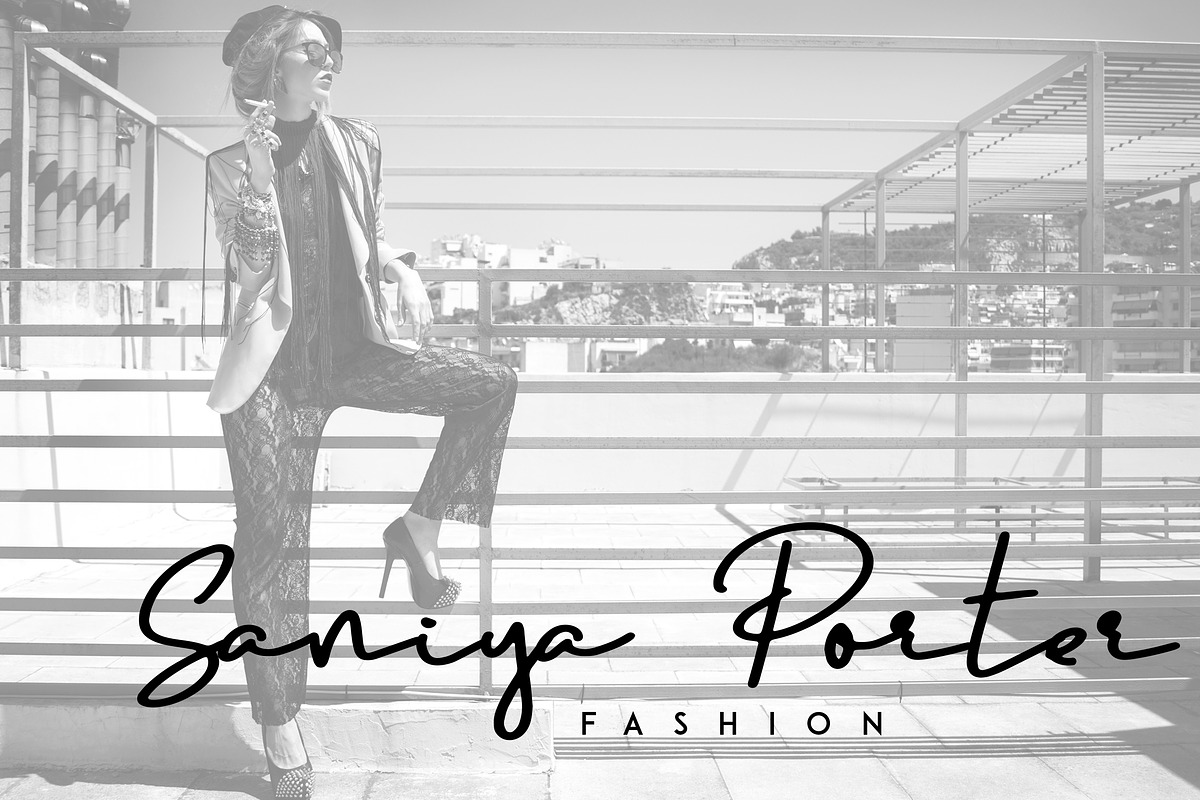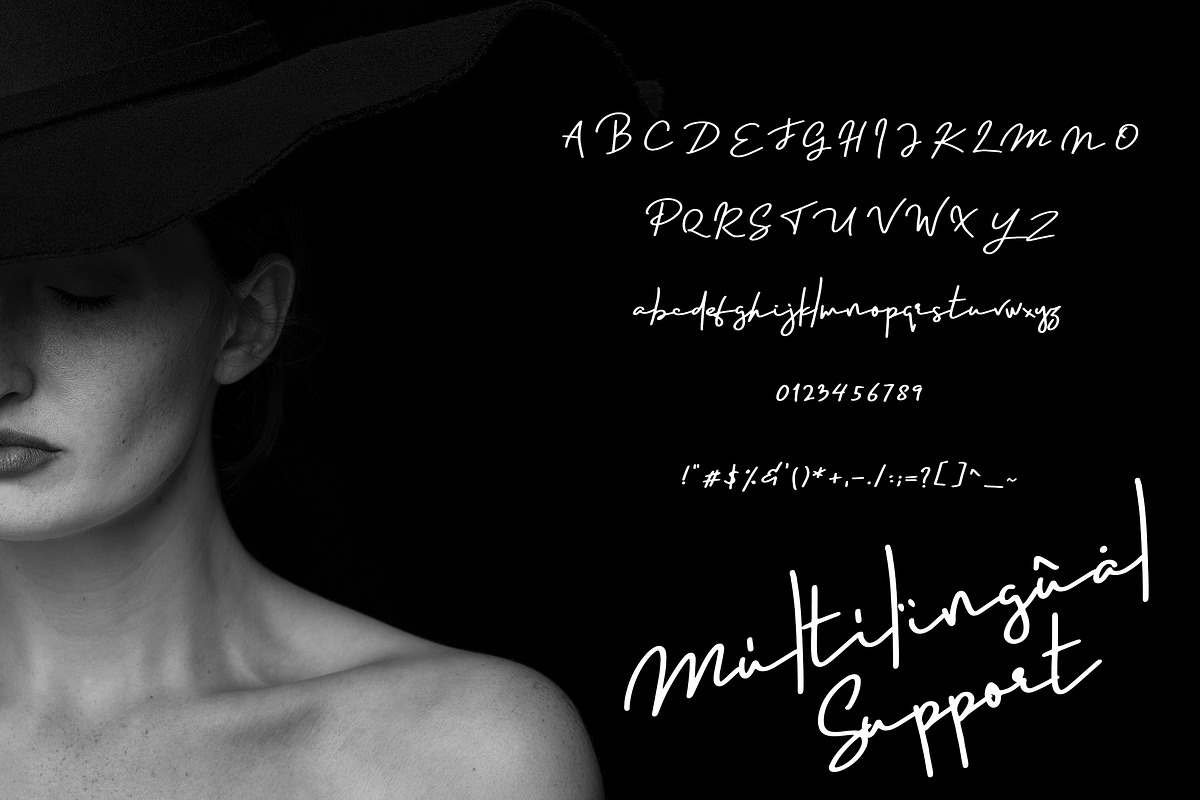
Portraits - Signature font
Portraits is signature, clean font with multilingual support. It's a very versatile font that works great in large and small sizes.
Portraits is perfect for branding projects, home-ware designs, product packaging, magazine headers - or simply as a stylish text overlay to any background image.
Why Portraits - Signature font is worth a look
Portraits - Signature font by VP Fonts fits naturally into Branding, posters, packaging, typography.